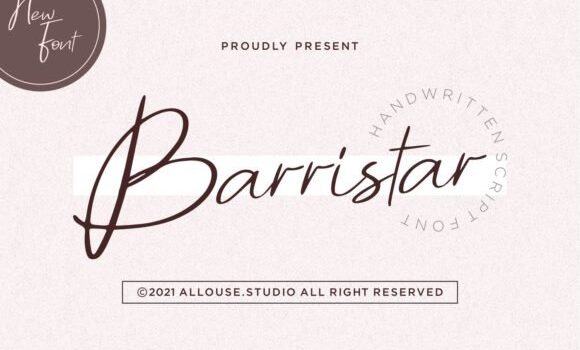
barristar
Barristar Font – Free Download Introduction to Barristar Font Barristar is a stylish and delicate script font. 📸 Preview Gallery 6 images 📌 Product Name Barristar Font 👤 Author allouse.studio 📂 Category Explore ⬇️ Download Barristar Font FREE Free Download